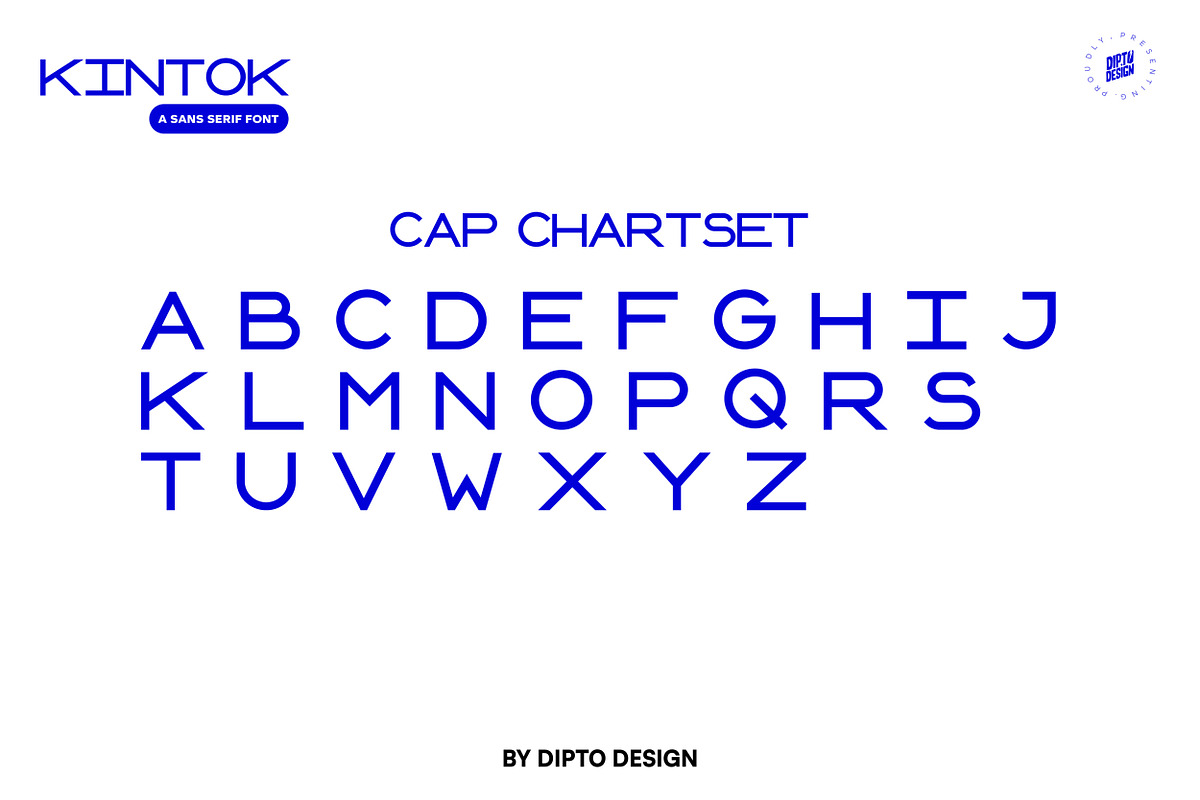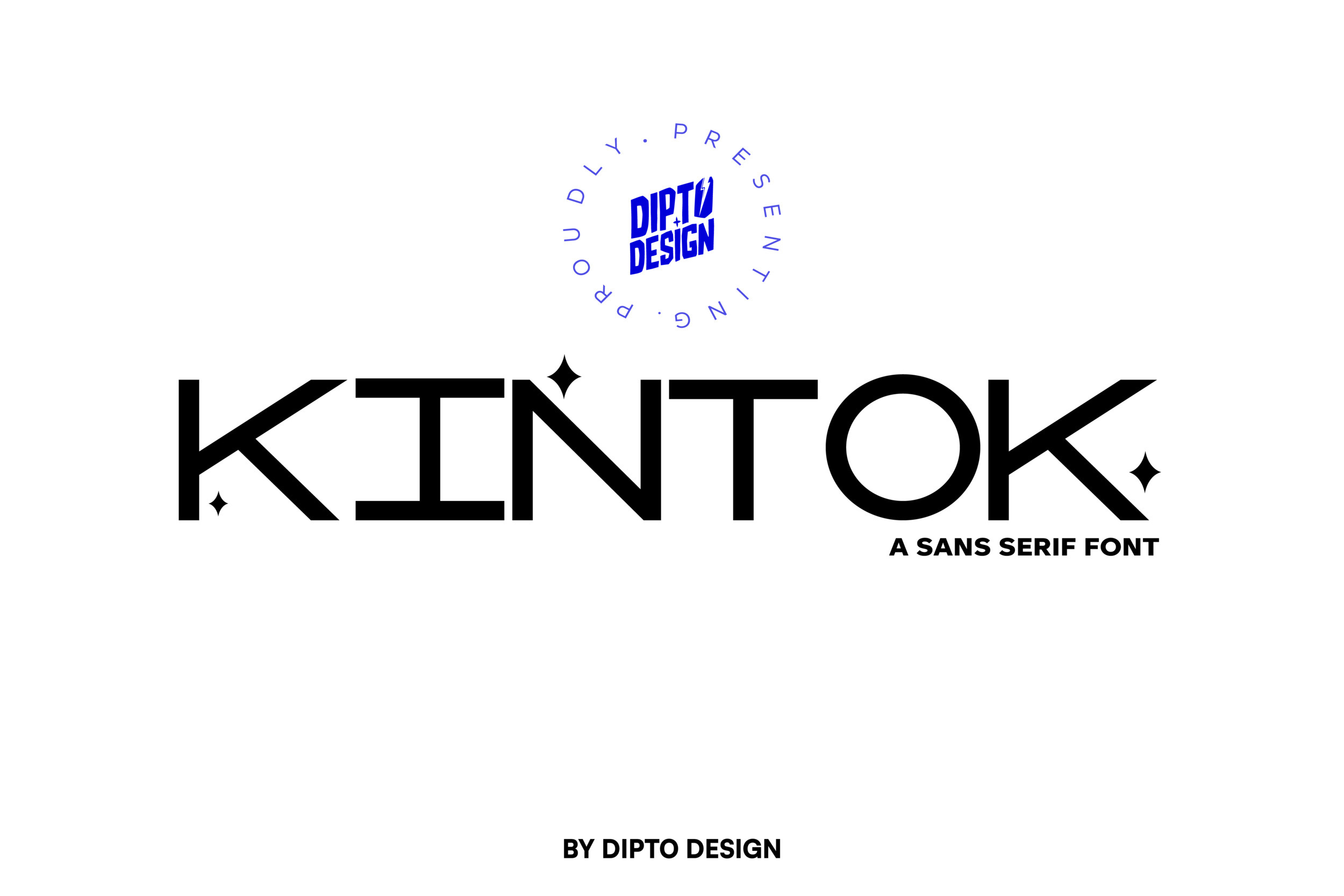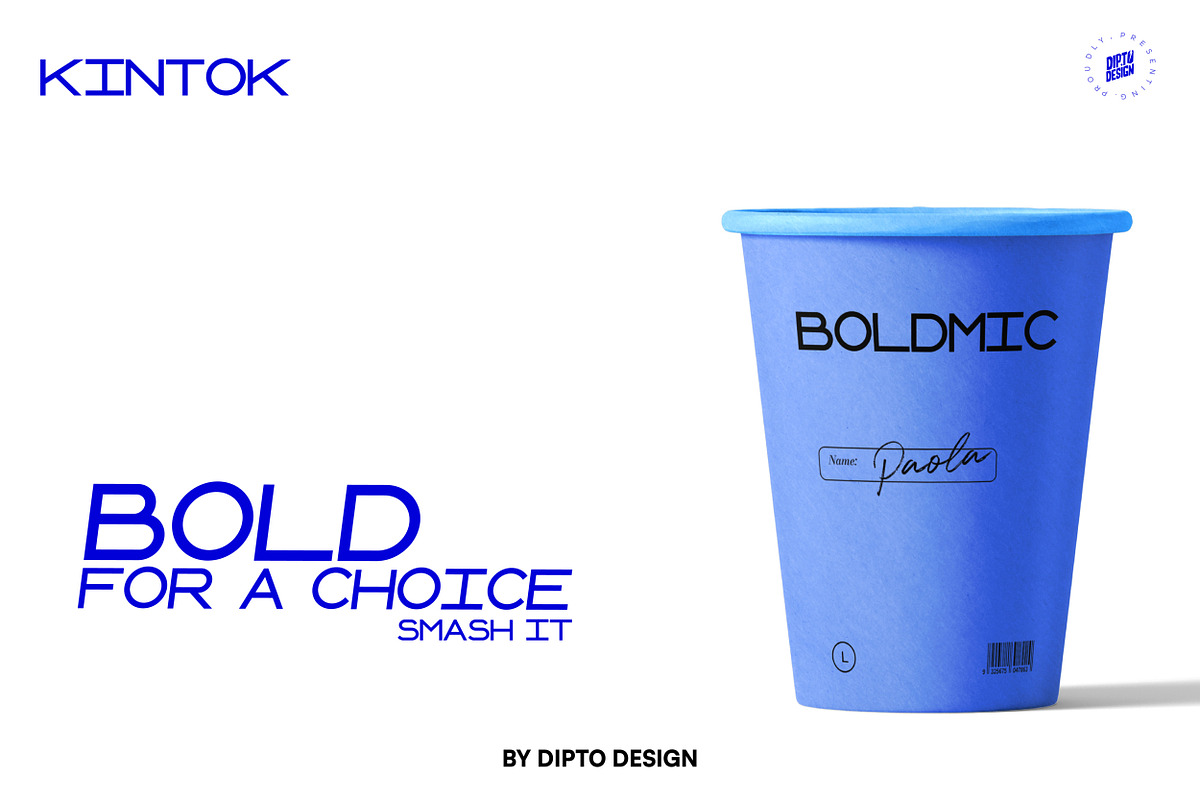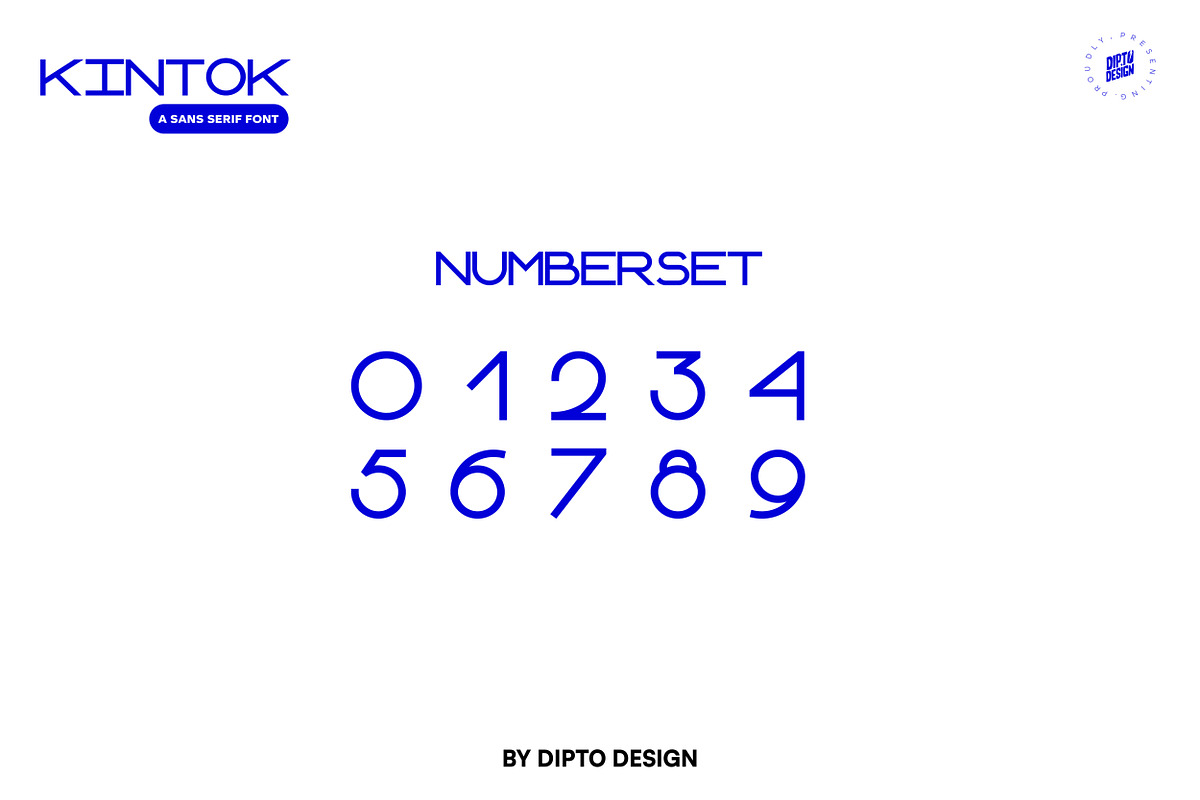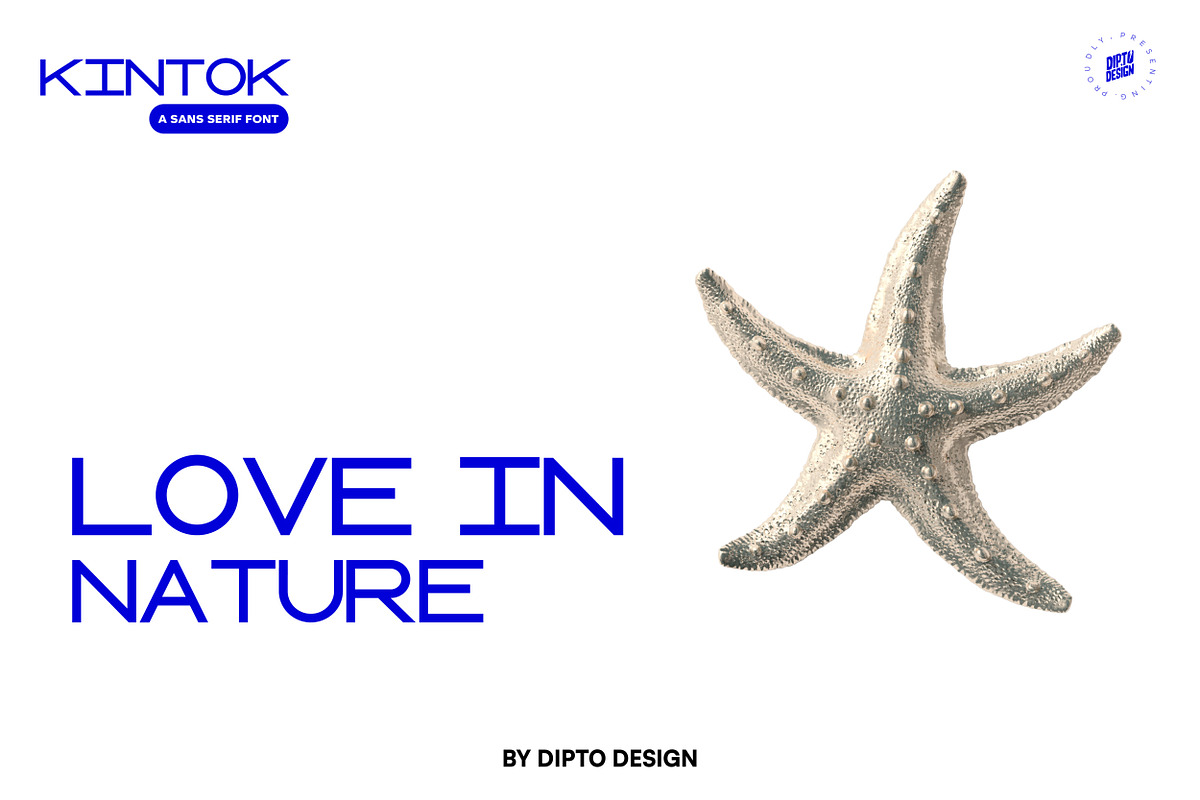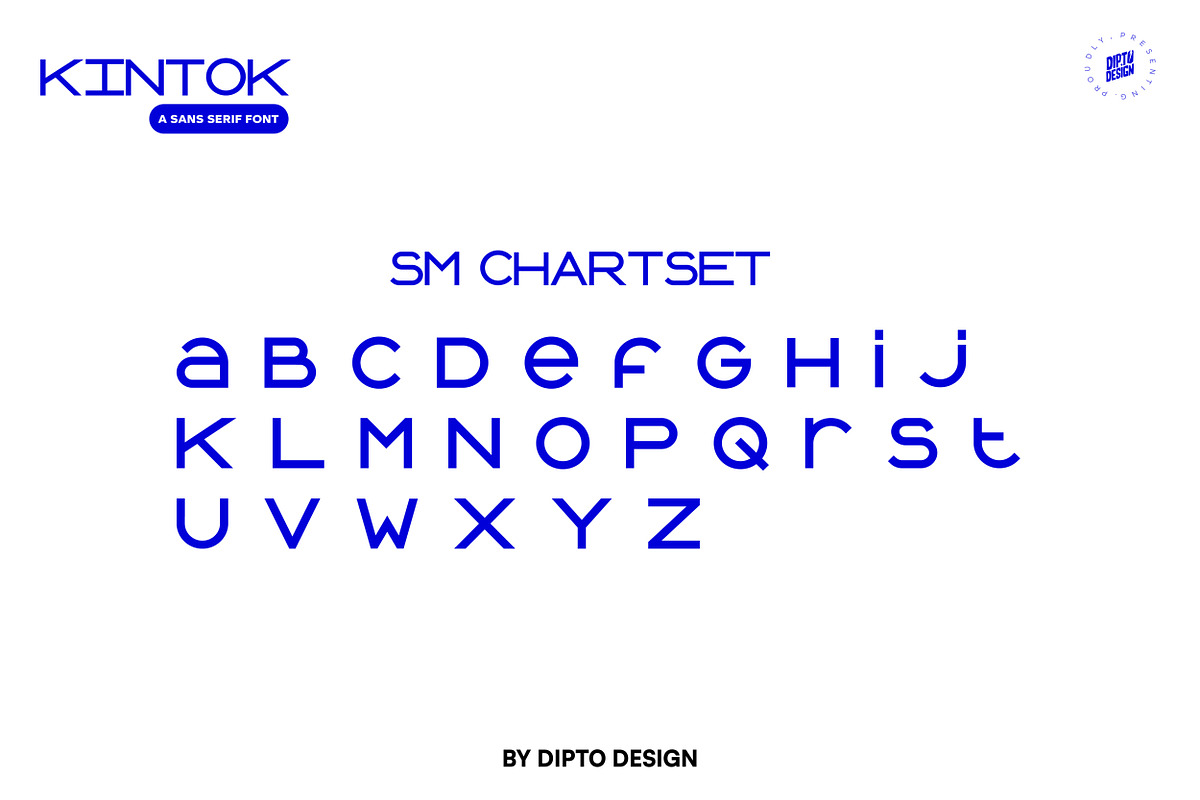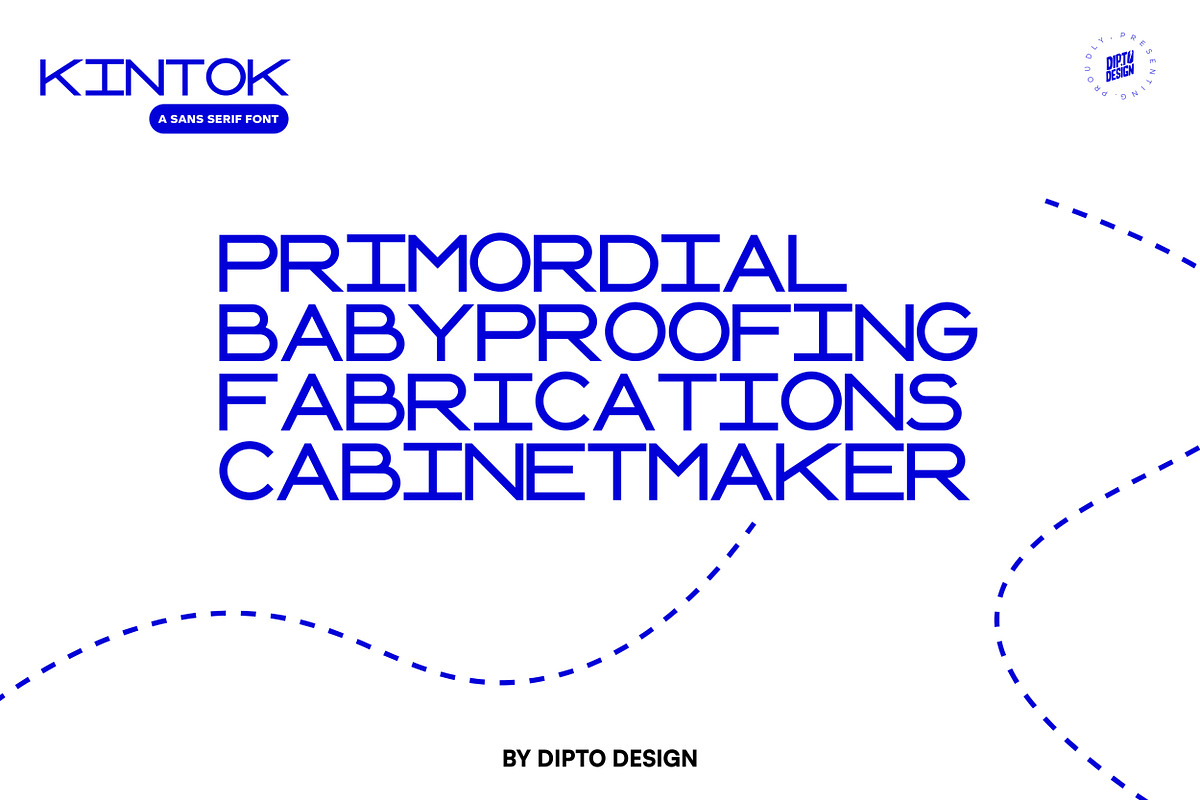
Kintok- A Sans Serif Font
Introducing Kintok: a revolutionary sans serif font that embodies subtle sophistication. This exquisite typeface is attentively designed to deliver a restrained elegance. Its crisp contours harmoniously blend with a hint of heft, subtly expressing a robust aesthetic. Picture perfect forge logos that effortlessly exude dignity and intrigue.
Construct headlines that engage the viewer, not by volume, but by virtue. Generate design elements that radiate refined quality devoid of gaudiness. Kintok offers you the power to make a resounding statement via gentle assurance.
- Uppercase: Regular
- Lowercase: Regular
- Punctuation and Marks
- Stylistic Set